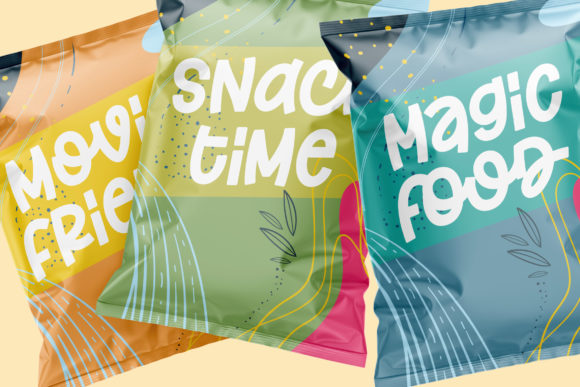
Jasmine Bloom Font: A Cute and Bold Display Font
Jasmine Bloom Font is a beautiful, handcrafted display font that is sure to capture the attention of anyone who sees it. With its bold and cute design, this font is perfect for adding a touch of elegance and sophistication to any project. Whether you’re looking to create a stunning headline or add some visual interest to a busy background, Jasmine Bloom Font is the perfect choice.
What Makes Jasmine Bloom Font So Special?
Jasmine Bloom Font is a carefully crafted font that is designed to stand out in any context. Its unique and bold design makes it perfect for use as a display font, and its handcrafted nature ensures that it is of the highest quality. The font is made up of beautiful, flowing lines that give it a sense of elegance and sophistication.
Key Features of Jasmine Bloom Font
- Handcrafted with love and care: Jasmine Bloom Font is a carefully crafted font that is designed to be a true favorite.
- Bold and cute design: The font has a bold and cute design that makes it perfect for adding a touch of elegance and sophistication to any project.
- Perfect for display use: Jasmine Bloom Font is designed specifically for display use, making it perfect for headlines, titles, and other large text applications.
- Works well on busy backgrounds: The font’s bold design ensures that it stands out even on busy backgrounds, making it perfect for use in a variety of contexts.
Uses for Jasmine Bloom Font
Jasmine Bloom Font is a versatile font that can be used in a variety of contexts. Here are just a few examples of how you can use this beautiful font:
Digital Uses
- Website headlines: Use Jasmine Bloom Font to create stunning headlines that capture the attention of your website visitors.
- Social media graphics: The font’s bold design makes it perfect for use in social media graphics, such as Facebook posts, Instagram captions, and Twitter headers.
- Digital advertising: Jasmine Bloom Font is perfect for use in digital advertising, such as Google Ads, Facebook Ads, and other online ad campaigns.
Print Uses
- Brochures and flyers: Use Jasmine Bloom Font to create eye-catching brochures and flyers that grab the attention of your target audience.
- Posters and banners: The font’s bold design makes it perfect for use in posters and banners, whether you’re advertising a sale, promoting an event, or simply trying to get your message out there.
- Business cards and stationery: Jasmine Bloom Font can also be used to add a touch of elegance and sophistication to business cards, letterheads, and other stationery.
Why Choose Jasmine Bloom Font?
There are many reasons why you might choose Jasmine Bloom Font for your next project. Here are just a few:
Unique Design
Jasmine Bloom Font has a unique and bold design that sets it apart from other fonts. Its handcrafted nature ensures that it is of the highest quality, and its elegant lines make it perfect for adding a touch of sophistication to any project.
Versatility
Jasmine Bloom Font is a versatile font that can be used in a variety of contexts, from digital applications to print materials. Its bold design ensures that it stands out in any context, making it perfect for use in a wide range of projects.
Easy to Read
Despite its bold design, Jasmine Bloom Font is easy to read, even at small sizes. This makes it perfect for use in a variety of contexts, from headlines to body text.
Tips for Using Jasmine Bloom Font
Here are a few tips for getting the most out of Jasmine Bloom Font:
Use it as a Display Font
Jasmine Bloom Font is designed specifically for display use, so use it to create stunning headlines and titles that capture the attention of your audience.
Pair it with Other Fonts
Jasmine Bloom Font can be paired with other fonts to create a unique and visually appealing design. Try pairing it with a clean sans-serif font for a bold and modern look.
Experiment with Colors
Jasmine Bloom Font looks great in a variety of colors, so don’t be afraid to experiment and find the perfect color scheme for your project.
Jasmine Bloom Font is a beautiful, handcrafted display font that is sure to capture the attention of anyone who sees it. With its bold and cute design, this font is perfect for adding a touch of elegance and sophistication to any project. Whether you’re looking to create a stunning headline or add some visual interest to a busy background, Jasmine Bloom Font is the perfect choice.
If you’re looking for a unique and versatile font that can help take your projects to the next level, look no further than Jasmine Bloom Font. With its bold and cute design, this font is sure to become a true favorite.